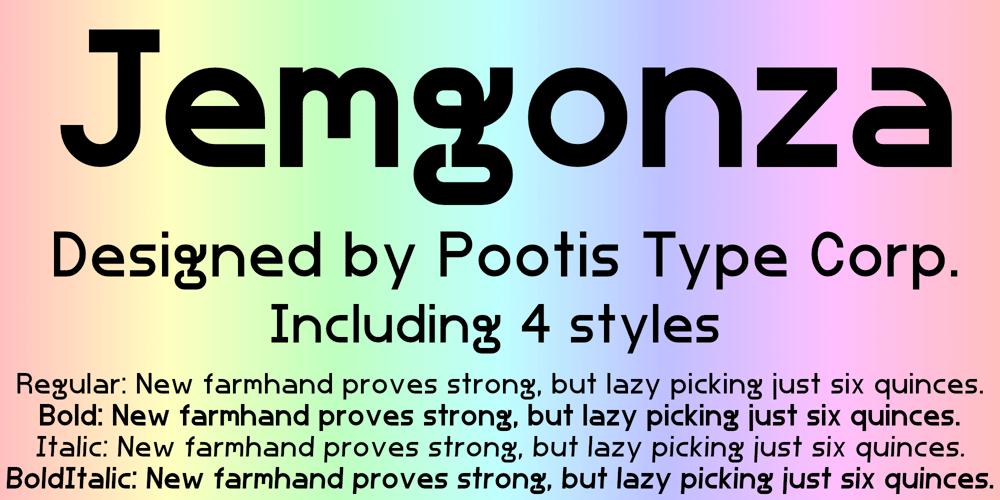
Jemgonza Font Family was designed by Bryndan Meyerholt and published by Pootis Type Corp.. Jemgonza contains 4 styles and family package options. Jemgonza is a Sans-serif font started on January 26, 2022.This font with hyper-extended character sets allow for usage for billboard signs, logos, and even professional documents and essays.It contains localized forms for certain languages that write them differently. For example: Л and л shaped like upside-down V’s, д shaped like a lowercase g, и shaped like a lowercase u, and more for Bulgarian; б shaped like the Greek lowercase letter delta for Macedonian and Serbian.There are two non-standard variation sequences for the light and dark shades for when they are used vertically. If it bothers you, you can add Variation Selector-14 after each one of thoseThis font also contains 256 braille patterns for the blind people. Note that each pattern is not tied to any specific letter since multiple scripts have a braille system